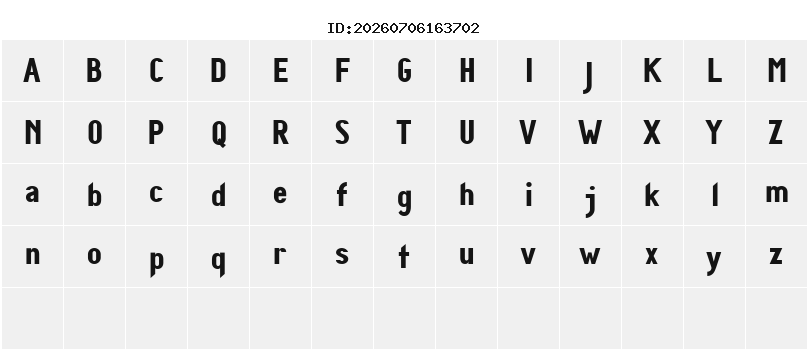
• Font Name: Diamante
• Full Font Name: Diamante Bold
• Designer: Studio Monocromo
• Manufacturer: Katiuscia Mari for Studio Monocromo
Diamante.ttf is a modern, elegant sans-serif font designed for ultimate readability and visual harmony. Perfect for branding, headlines, web design, and print materials.